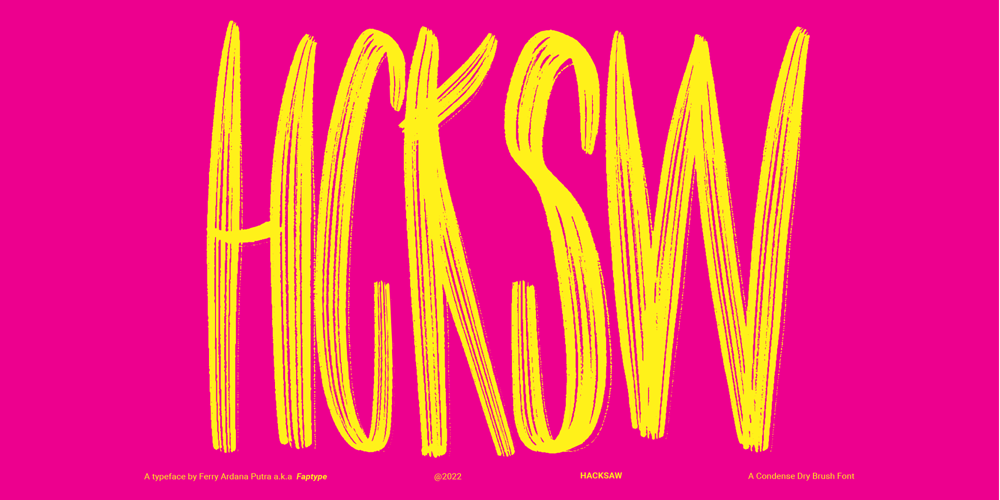
Hacksaw Brush Font Family was designed by Ferry Ardana Putra and published by Ferry Ardana Putra. Hacksaw Brush contains 1 styles and family package options. Hacksaw is dry brush font handmade with a dedicated soul. This super condensed and trippy typeface was designed to be exclusive and is perfect for those who love condensed, wild, natural brushed feel fonts.This typeface is perfect for creating elegant branding and headlines for handmade, food & beverage, artisan goods, quotes, invites, t-shirts, logos, and, or use it to elevate your social media feed!Hacksaw features:A full set of upper & lowercase charactersNumbers & punctuationMultilingual language supportPUA Encoded CharactersDozen of SwashesOpenType Features———⚠️To enable the OpenType Stylistic alternates, you need a program that supports OpenType features such as Adobe Illustrator CS, Adobe InDesign & CorelDraw X6-X7, Microsoft Word 2010 or later versions. There are additional ways to access alternates/swashes, using Character Map (Windows), Nexus Font (Windows), Font Book (Mac) or a software program such as Pop Char (for Windows and Mac).⚠️For more information about accessing alternative, you can see this link: http://adobe.ly/1m1fn4Y